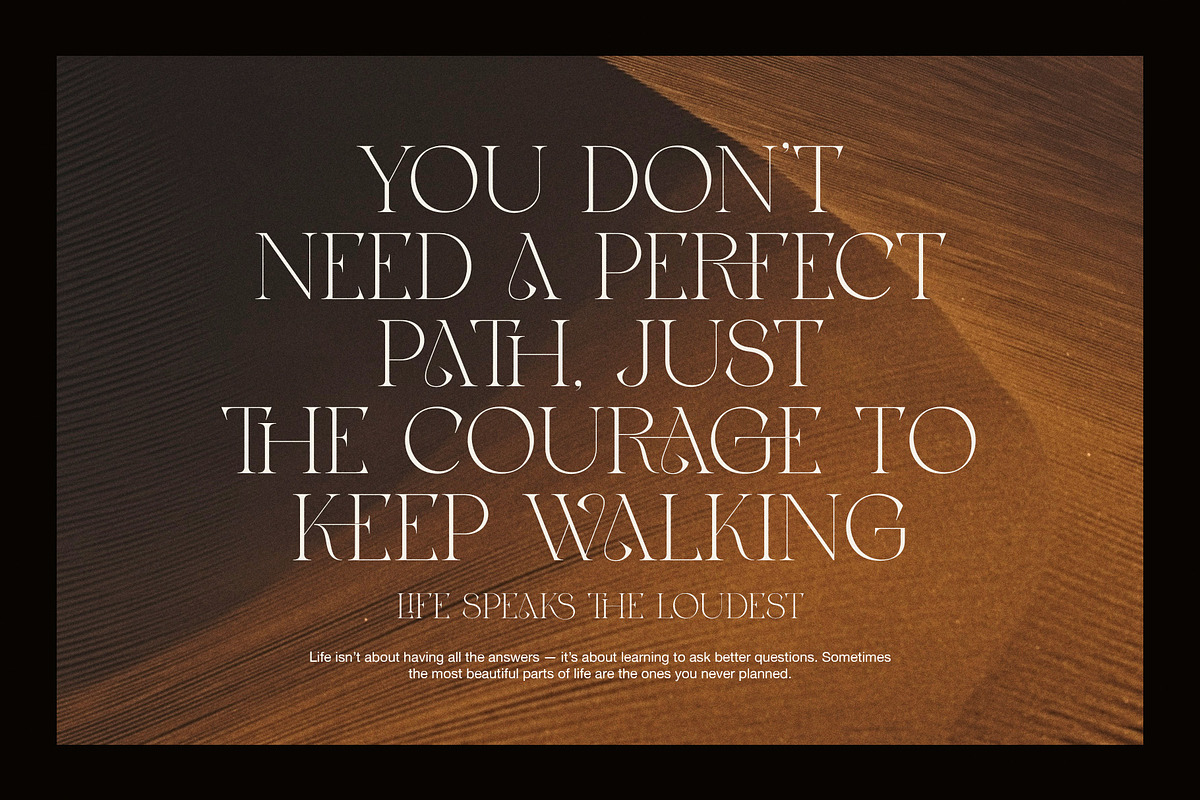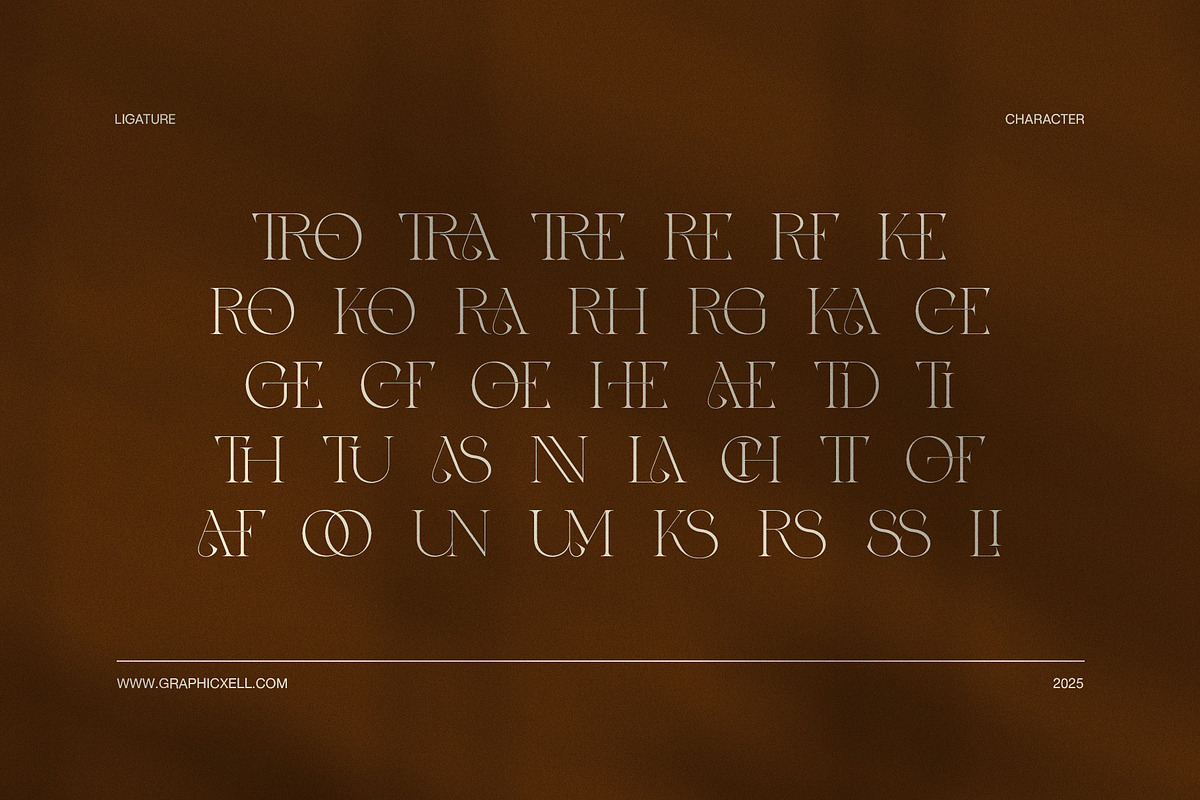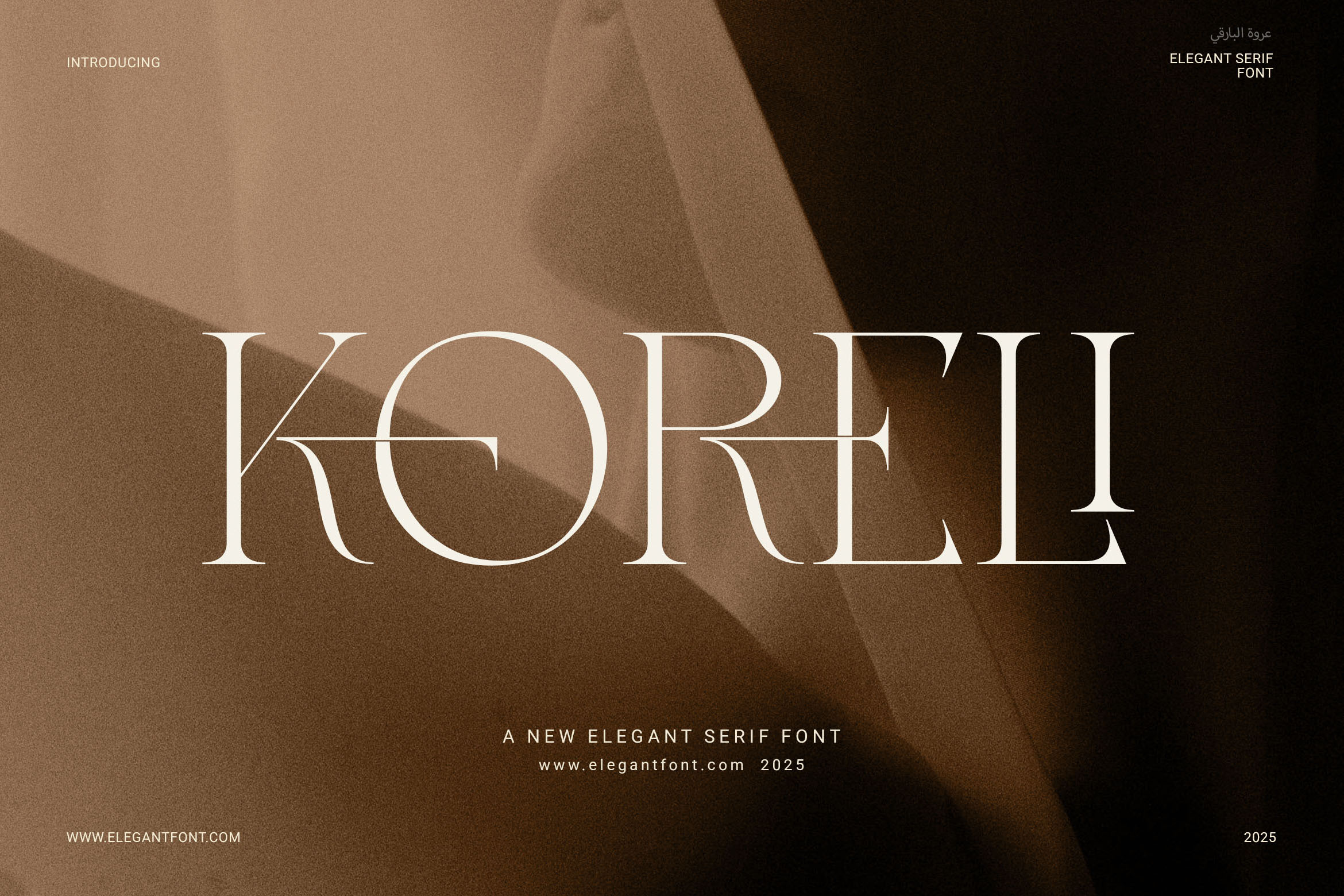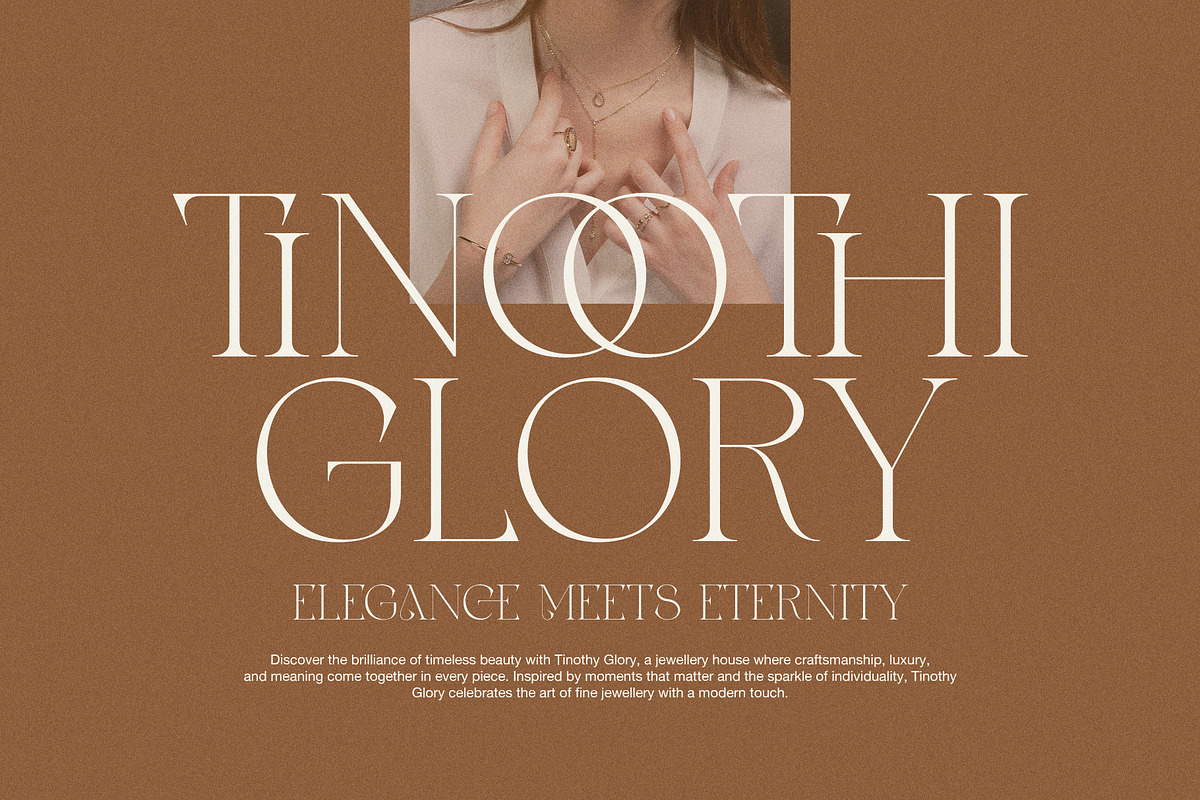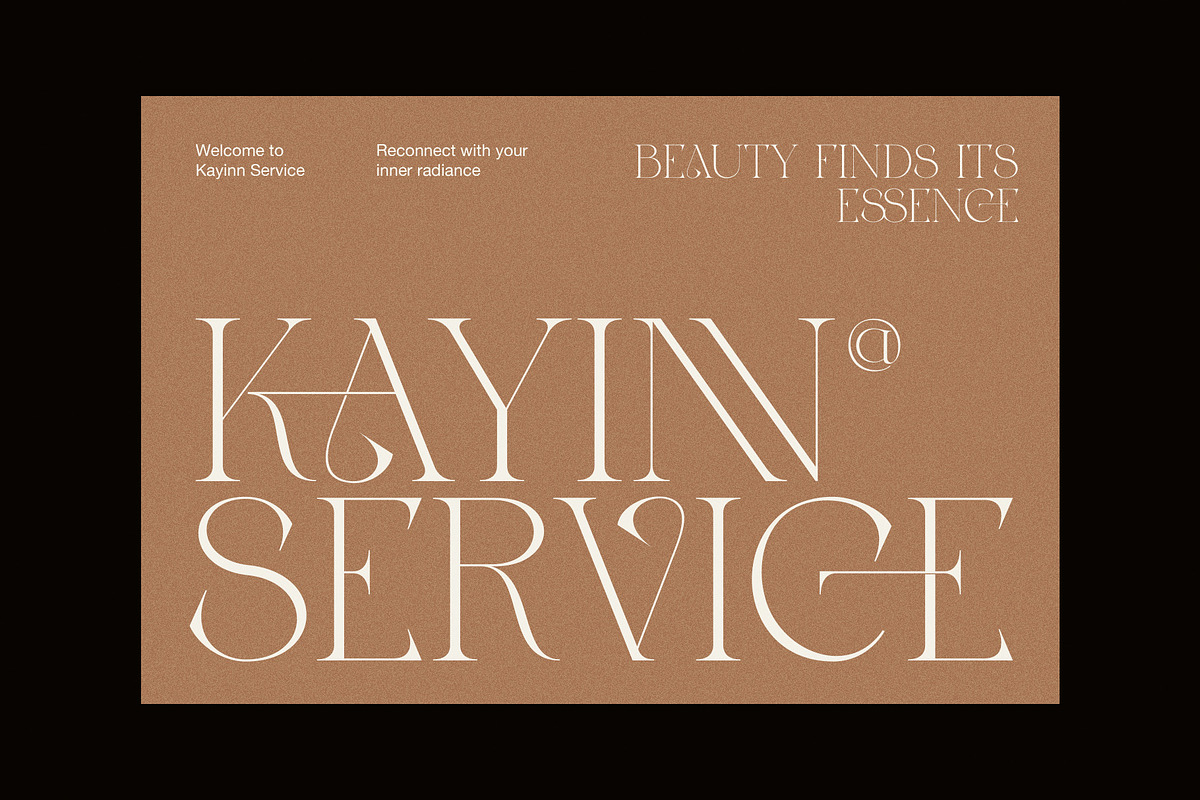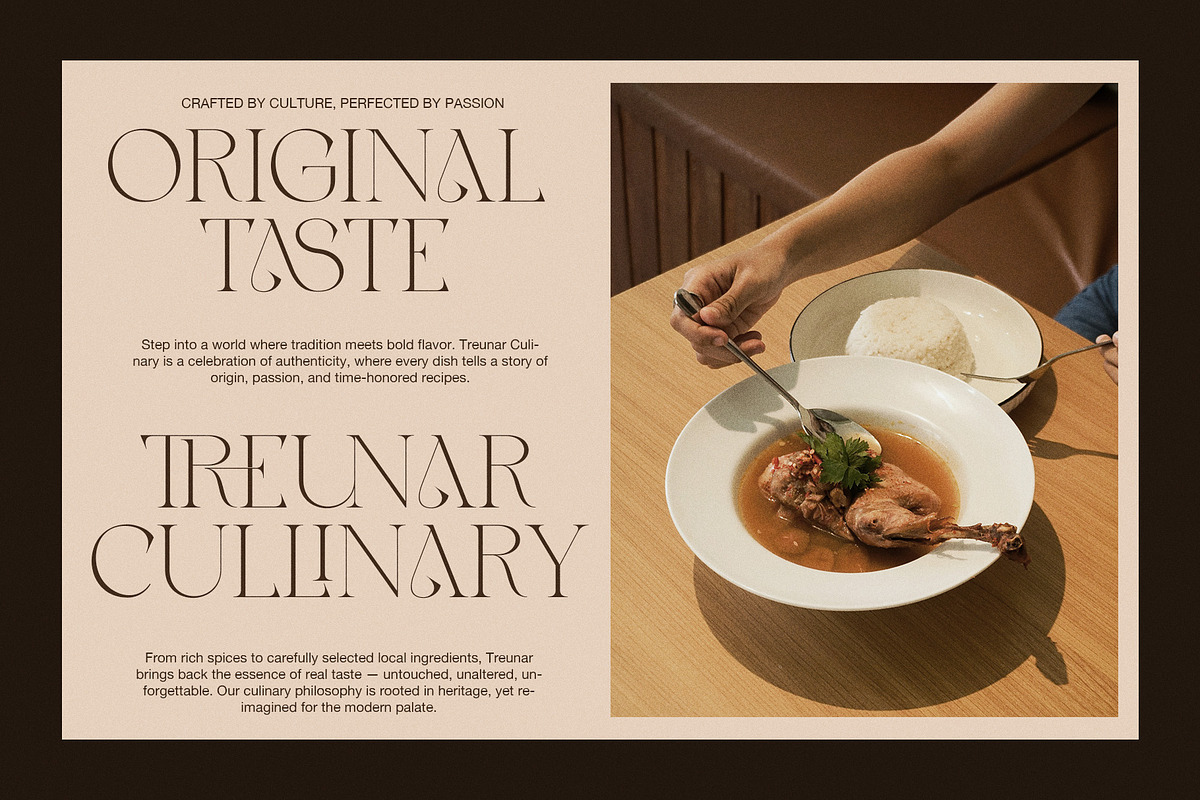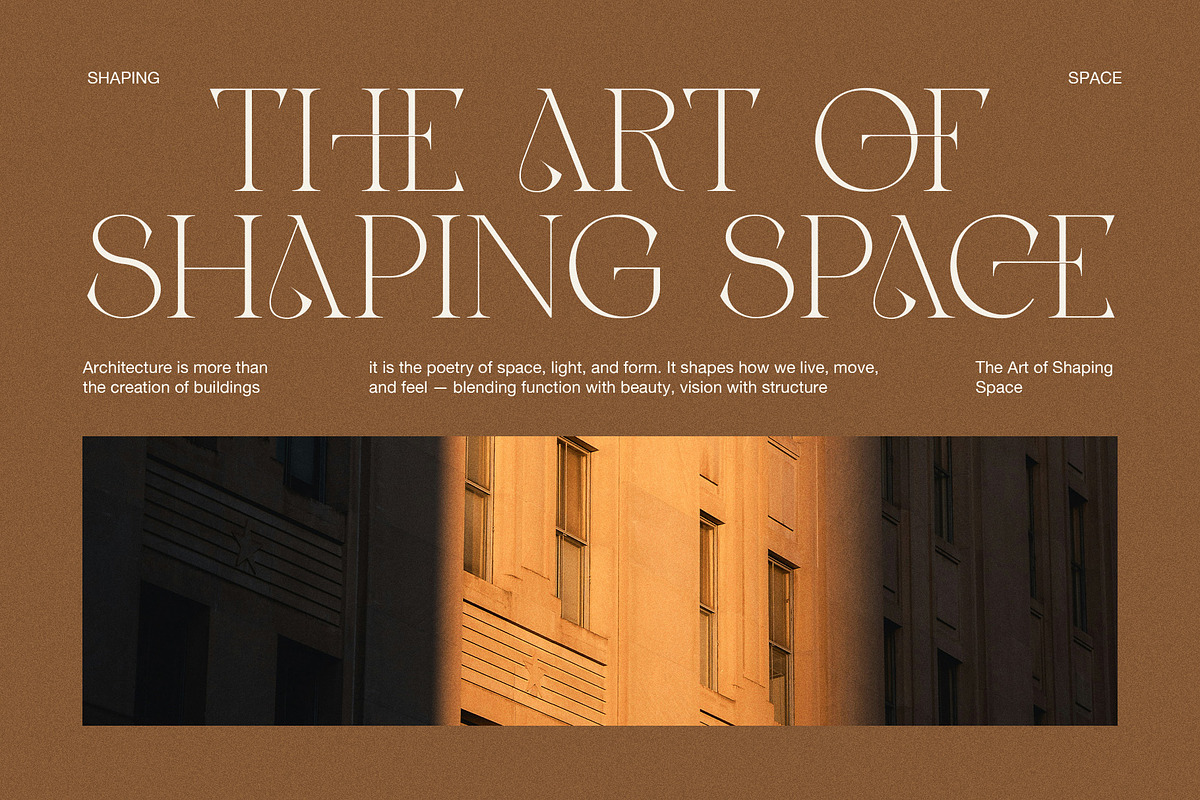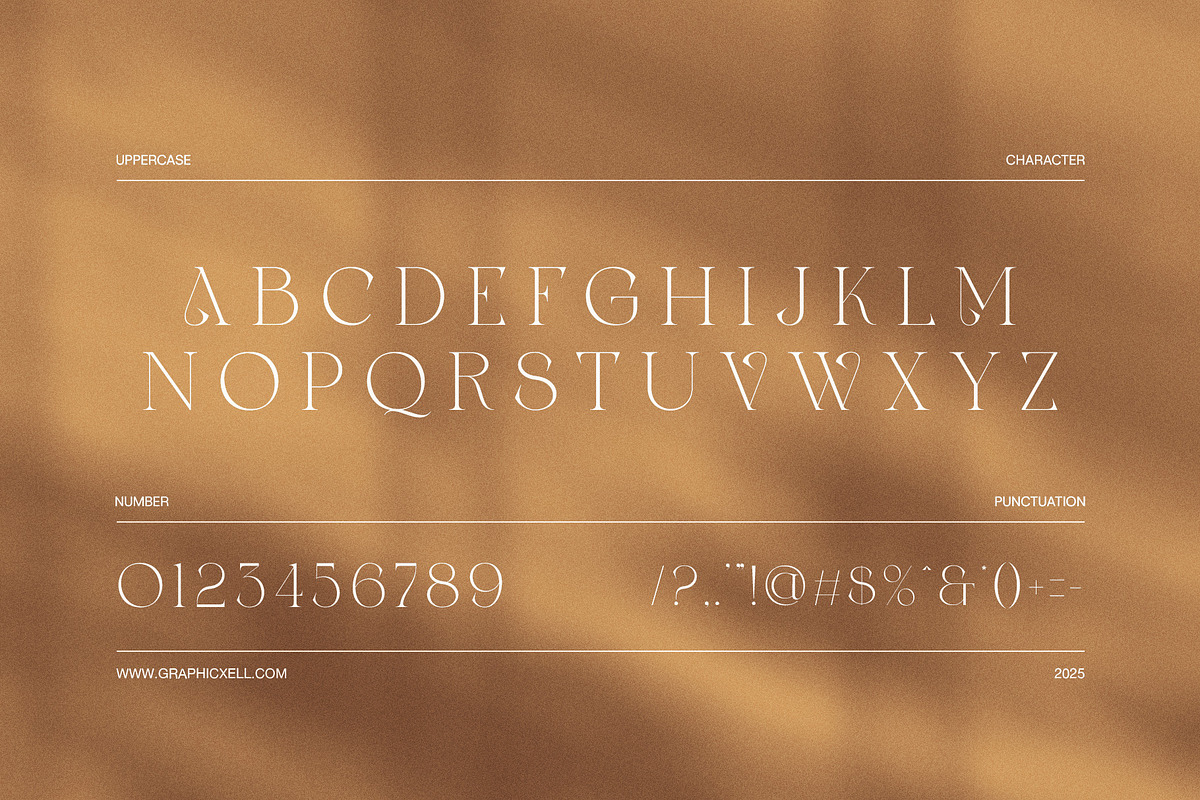
Koreli Elegant Serif Font
Koreli Elegant Serif Font is a modern and refined typeface designed to elevate your visual identity with class and clarity. Its proportional and well-balanced shapes give every word a polished appearance, making it perfect for both luxury and minimalist design projects.
With clean lines and soft curves, Koreli creates a strong yet graceful impression. It includes functional ligatures that enhance the natural flow of text while adding a unique touch to every composition. Whether you’re working on digital content or printed materials, Koreli offers a seamless blend of beauty and function.
Thanks to its readability and versatile style, Koreli fits perfectly in a wide variety of creative uses. You can use it for:
Logos and branding projects
Product labels and packaging
Editorial layouts and magazine covers
Website headers and landing pages
Invitations and event stationery
Boutique and fashion branding
Restaurant menus and signage
Social media visuals
Luxury marketing campaigns
Moreover, Koreli includes OpenType features, making it easy to access special characters and ligatures in most design software. Its elegant appearance, paired with practical usability, allows your work to stand out in both subtle and bold ways.
Because of its balance between style and simplicity, Koreli is a smart choice for designers, marketers, and creatives who want their typography to feel premium yet accessible.